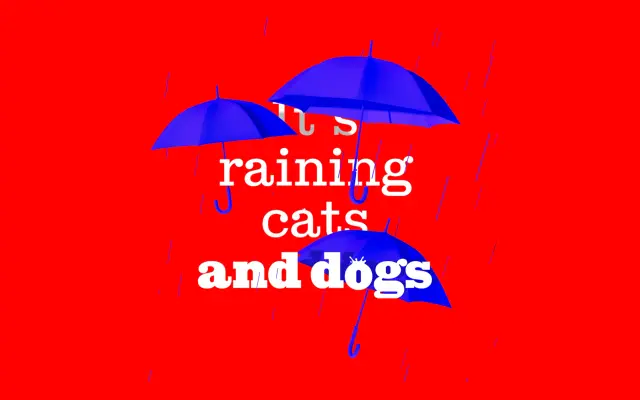
F37 Britain Slab
The slab serif within the F37 Britain collection, eight styles deep with matching italics for poster and editorial work.
A slab serif that joins the F37 Britain collection. Eight styles run across four weights from Regular to Black with matching italics, giving it enough weight range for both poster and editorial use. The shapes lean on British wood type and shopfront signage rather than the American Clarendon lineage, slotting next to the Scotch and Typewriter cuts in the wider system.
F37 classify F37 Britain Slab as the slab cut within the F37 Britain collection. It draws on nineteenth century British wood type and signage with rectangular, unbracketed serifs.